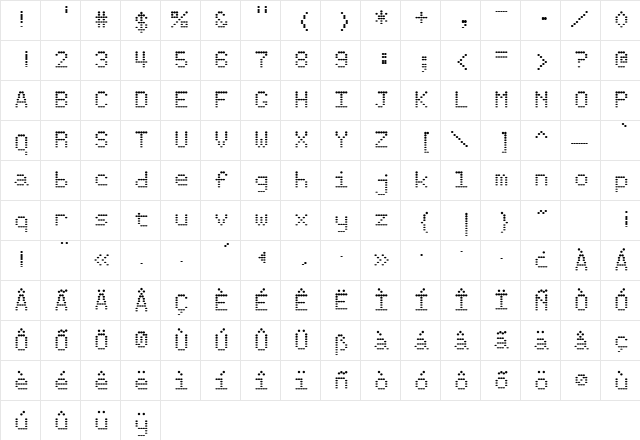
IrritationOne Regular
Design Context for IrritationOne Typeface
IrritationOne takes a measured approach to typography — its balanced proportions and neutral character make it a reliable workhorse for both digital and print work.